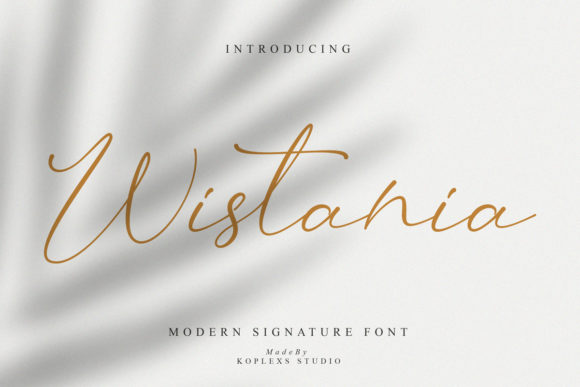
Step into the world of Wistania Font, a creation borne from the very depths of the heart, where each stroke intertwines a tapestry of love, affection, attention, happiness, and joy. Immerse yourself in the beauty of this script font, meticulously crafted by the talented Koplexs Studio.
Wistania's allure lies in its delicate strokes and flowing lines, reminiscent of a love letter penned with unwavering devotion. Its glyphs and swashes dance across the page, carrying your words with elegance and grace. With Wistania, your designs will transcend the ordinary, captivating your audience with a touch of heartfelt magic.
Unleash your creativity and transform your projects into masterpieces with Wistania. Let your imagination soar as you craft logos that exude sophistication, invitations that evoke heartfelt emotions, and social media posts that radiate with charm. Wistania's versatility extends beyond the digital realm; it adds an enchanting touch to branding materials, packaging designs, and merchandise, leaving an indelible mark on your customers' minds.
With Wistania, you hold the key to unlocking a world of endless possibilities. Its PUA encoding empowers you with effortless access to a treasure trove of glyphs and swashes, allowing you to weave intricate designs and add a layer of visual depth to your creations.
Don't settle for ordinary fonts; embrace the extraordinary with Wistania. Its every stroke is infused with passion and artistry, ready to elevate your designs to new heights. Experience the transformative power of Wistania today and embark on a journey of creative fulfillment like never before.